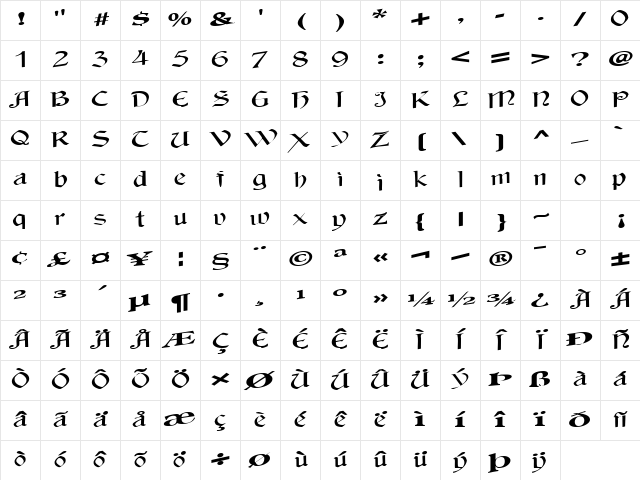
AgainstTheWind49 Regular
Complete AgainstTheWind49 Regular glyph index. Displaying only characters natively supported by AgainstTheWind49 Regular font.
Design Context for AgainstTheWind49
AgainstTheWind49 is a composed and adaptable typeface that performs quietly and consistently across a wide range of design contexts.
Pro Tip: Use AgainstTheWind49 in both headline and body roles to test its range before committing to a single application.